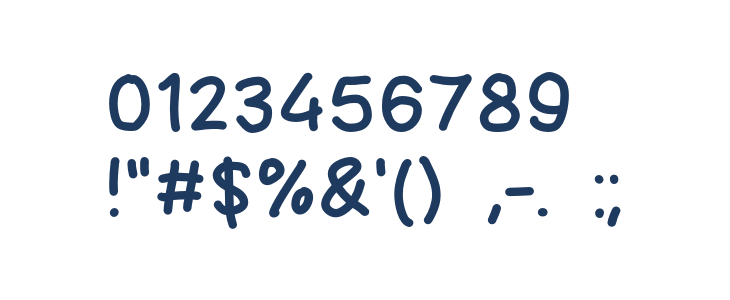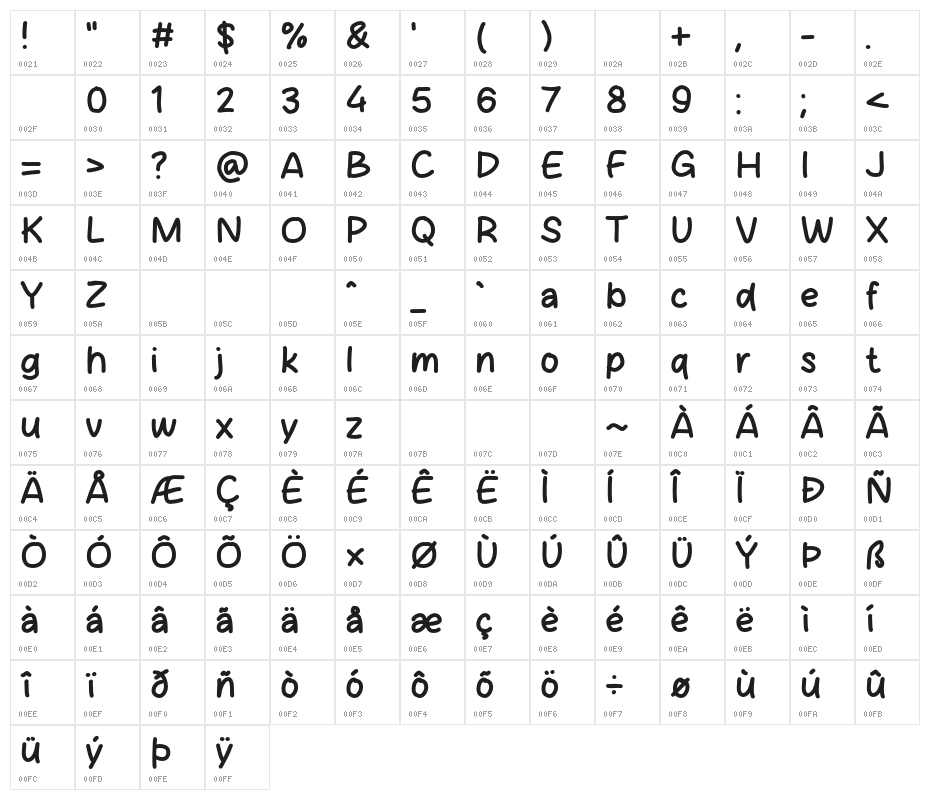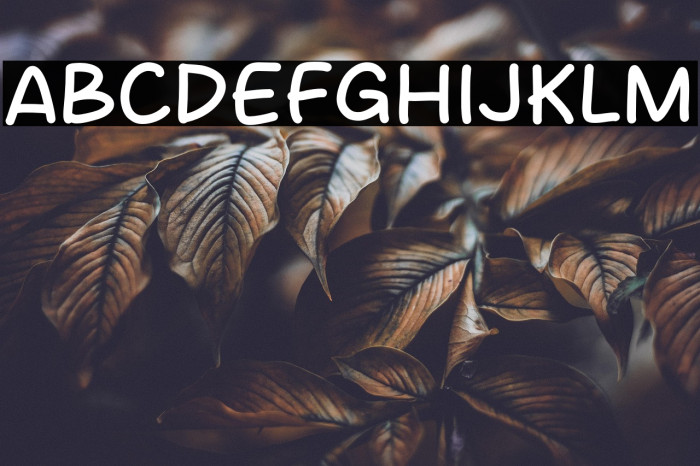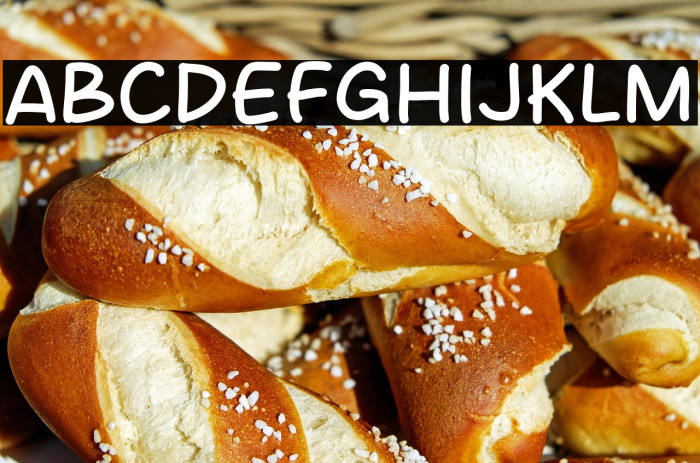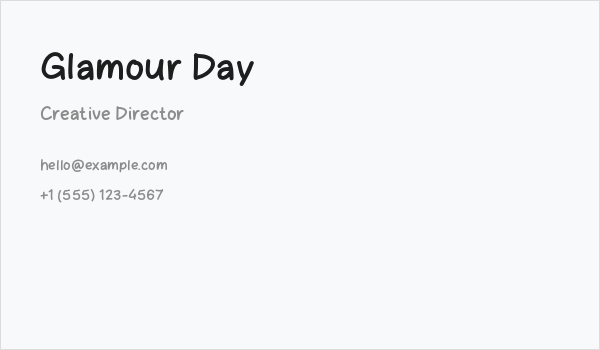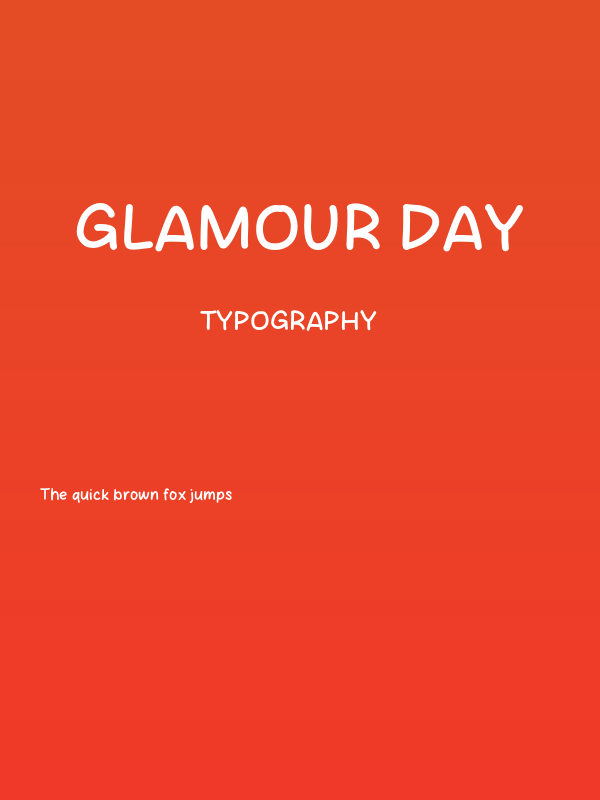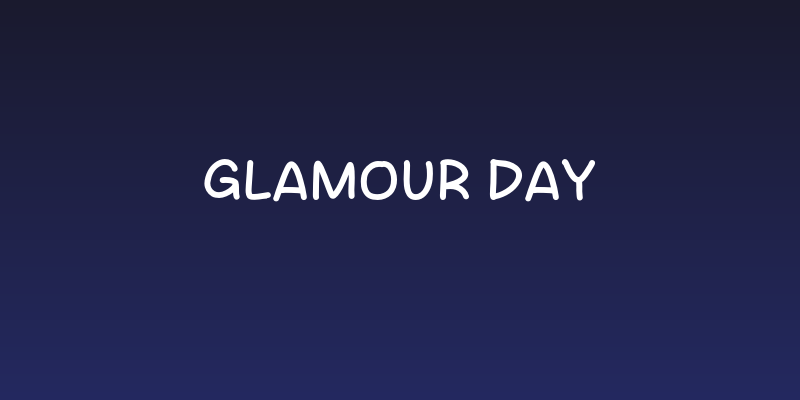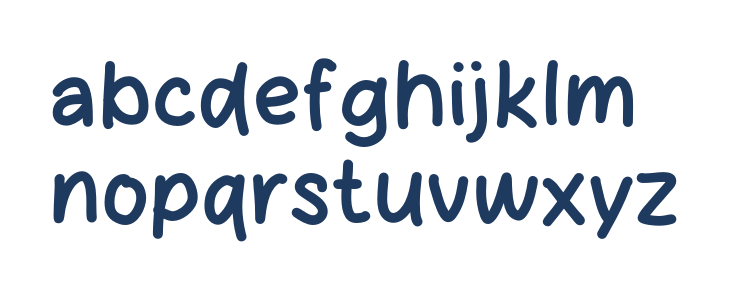
Glamour Day Font
Glamour Day Description
This playful and casual font exudes a handwritten charm, characterized by its rounded and slightly irregular strokes that give it a friendly and approachable feel. The letters are bold and well-defined, with a consistent thickness that maintains readability while adding a touch of whimsy. The font's informal style makes it suitable for projects that require a personal touch, such as invitations, greeting cards, or children's books. Its clear and distinct characters ensure that it remains legible even at smaller sizes, making it versatile for various design needs.
| Use Case | Headlines, Informal text, Branding |
| Proposed Projects | Ideal for invitations, greeting cards, children's books, and playful branding. |